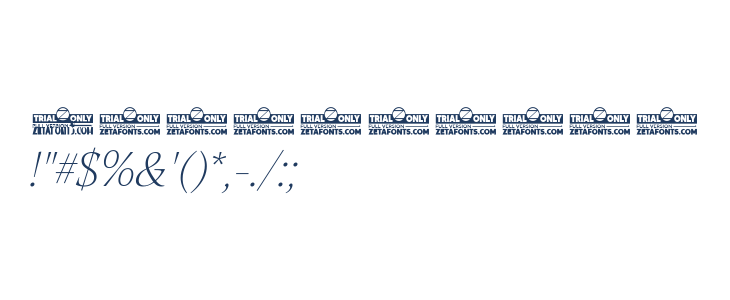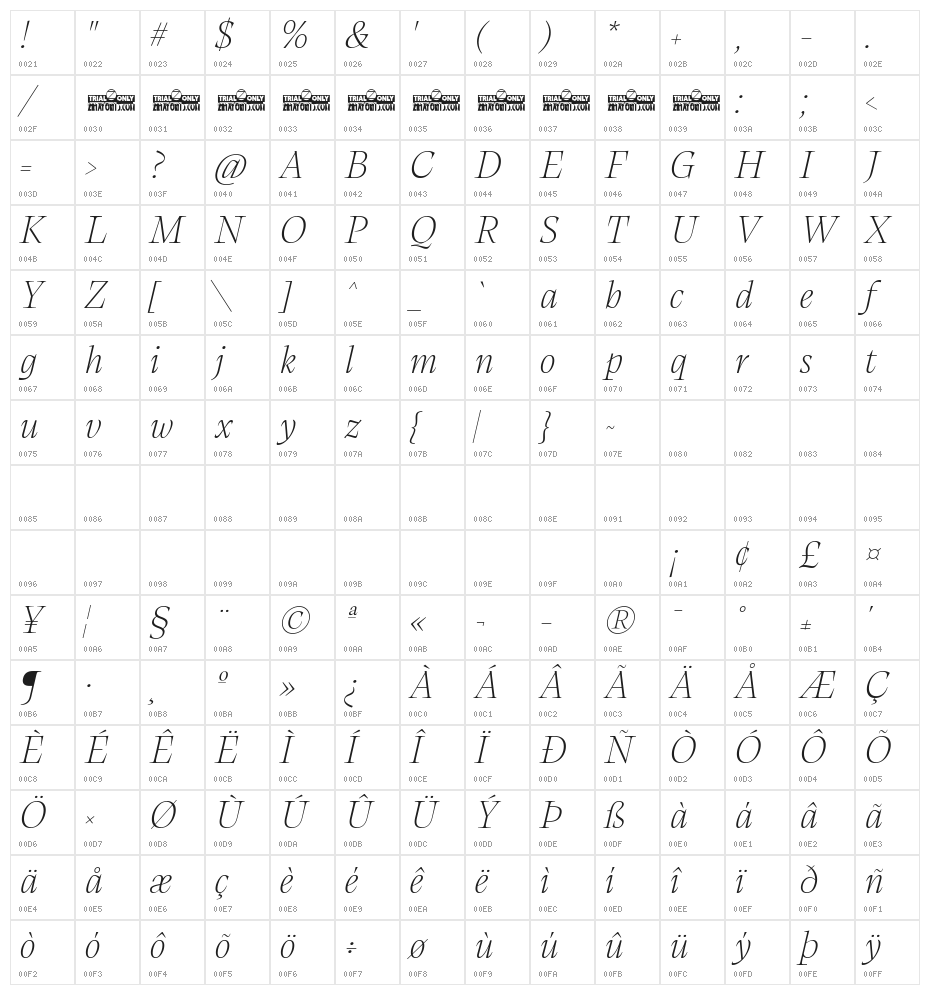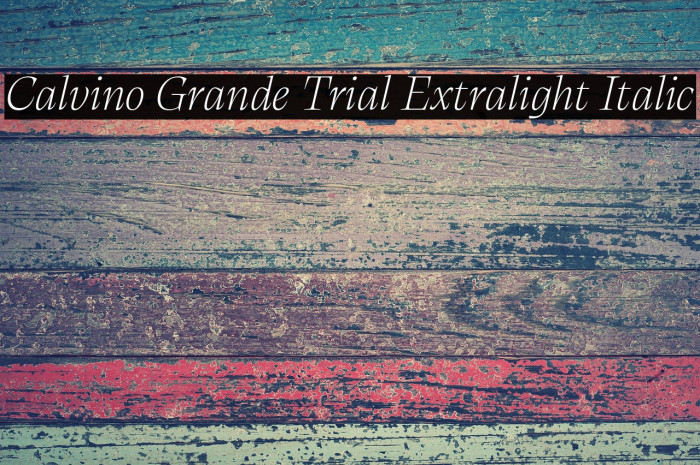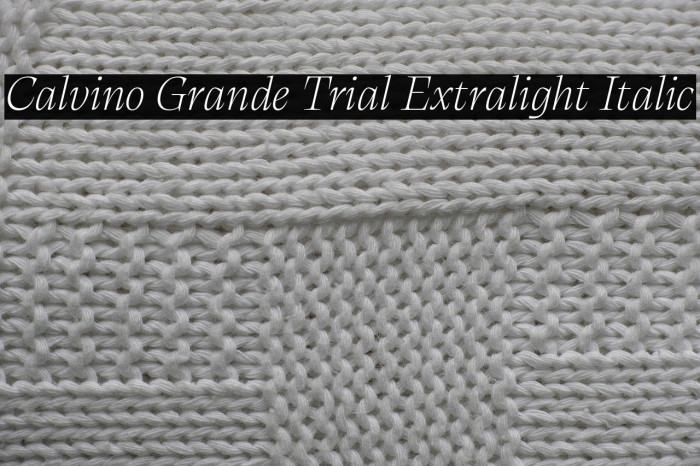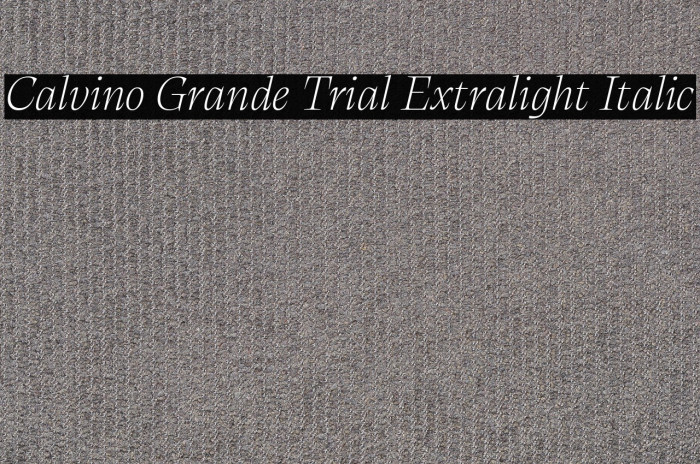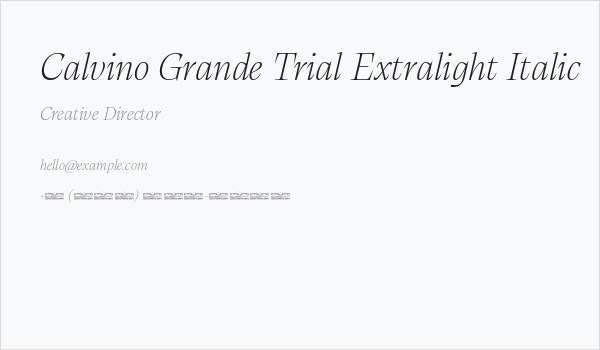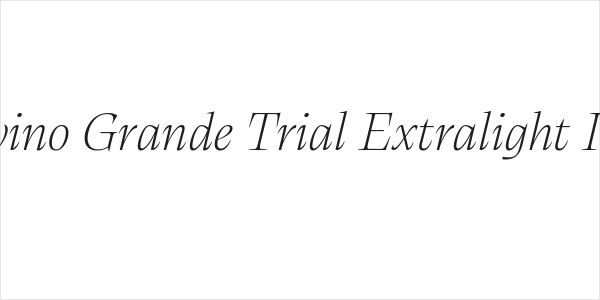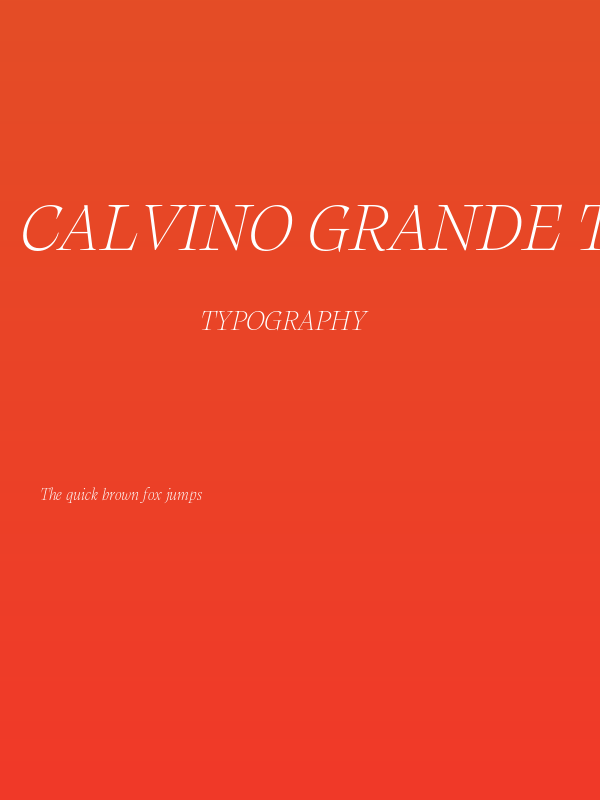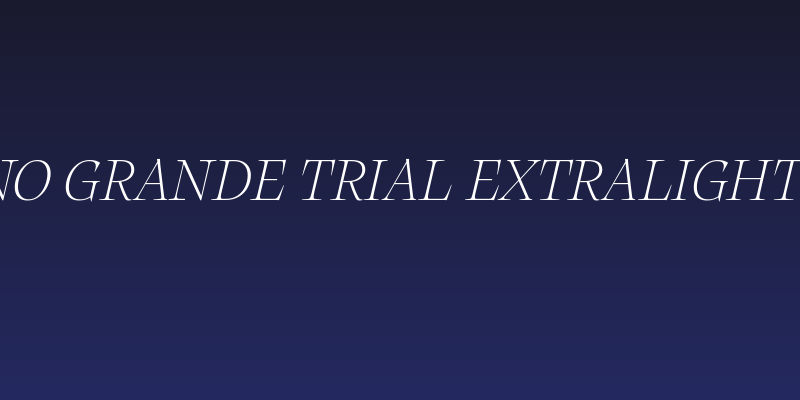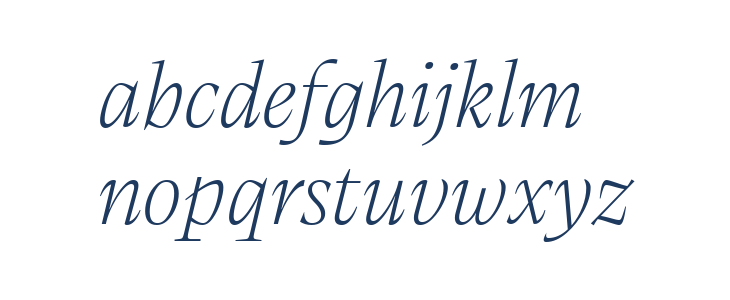
Calvino Grande Trial Extralight Italic Font
Calvino Grande Trial Extralight Italic Description
This font features an elegant and sophisticated design with a refined, extra-light weight. The italic style adds a graceful slant to the characters, enhancing its classic appeal. The serif details are subtle yet distinct, providing a touch of tradition while maintaining a modern aesthetic. The characters are well-proportioned, with a slight contrast in stroke thickness that adds to its readability and charm. The overall design is clean and uncluttered, making it suitable for a variety of applications where elegance and clarity are desired.